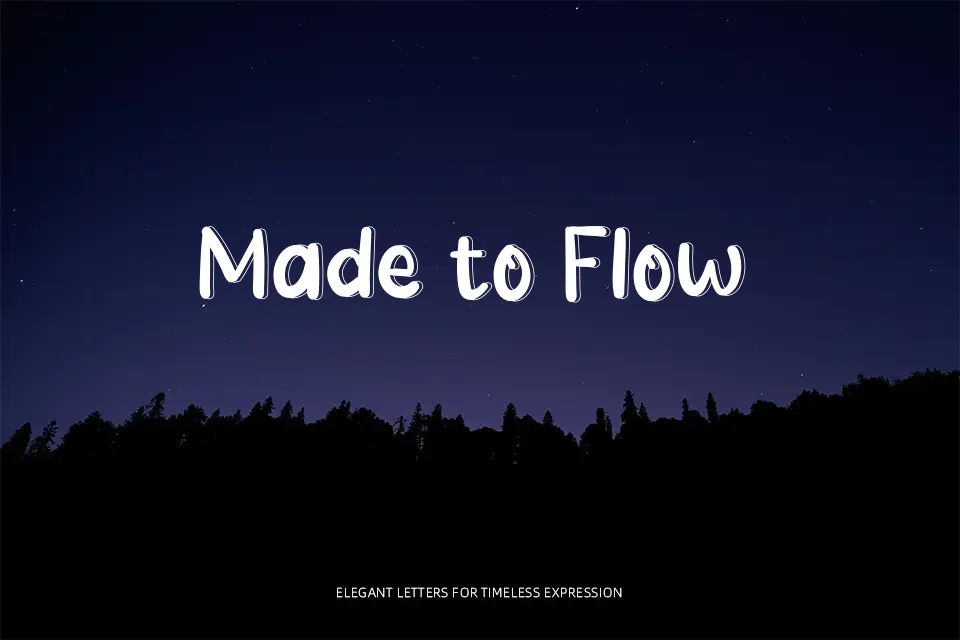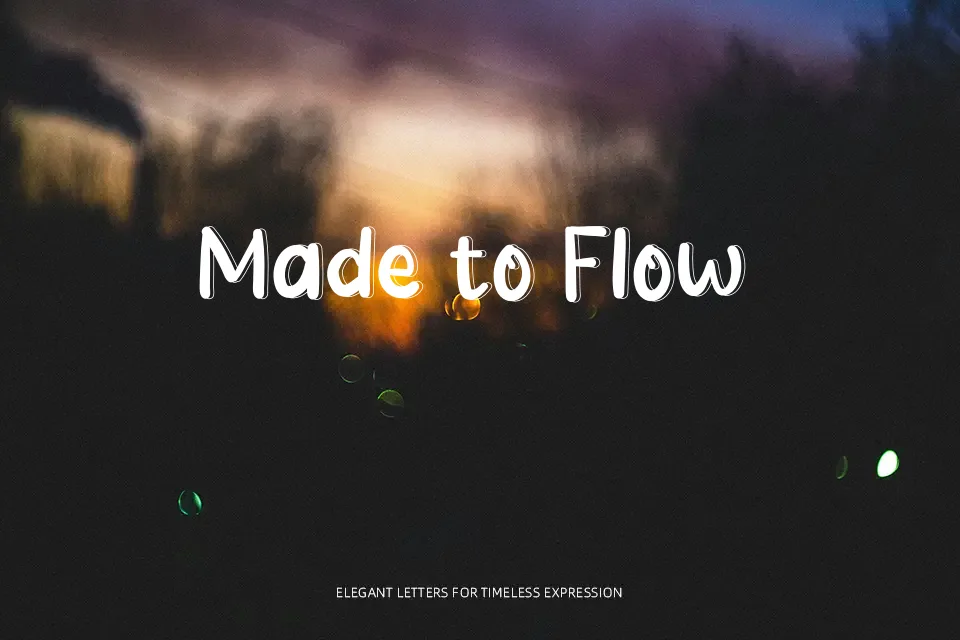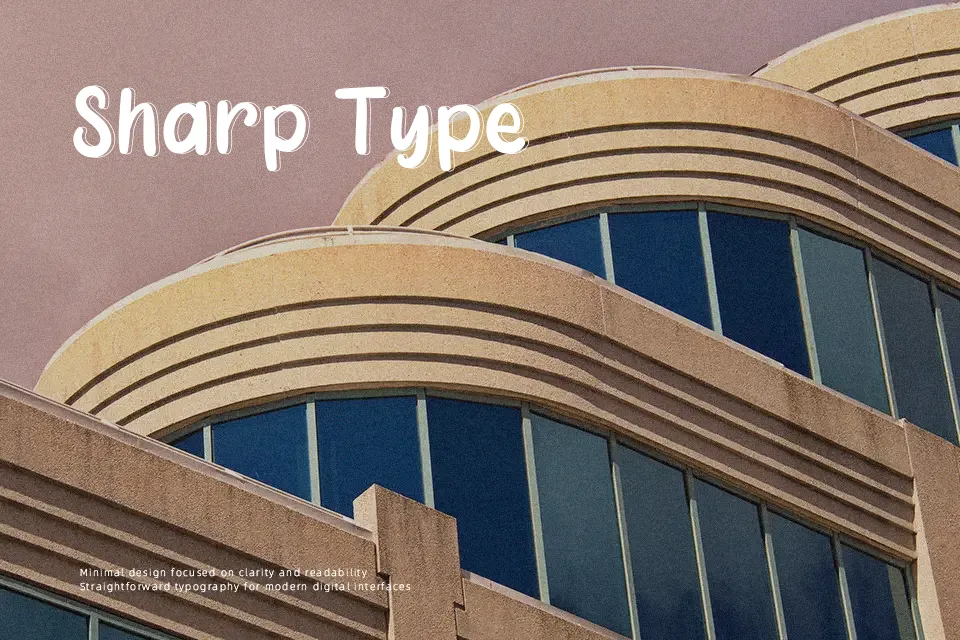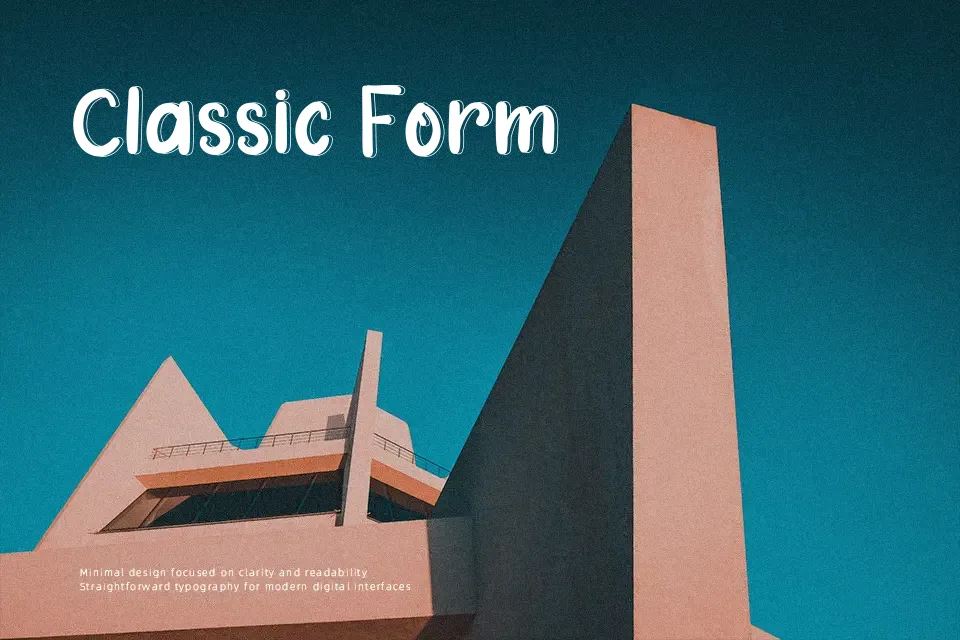
Afternoon Farmhouse Font
There’s a relaxed looseness to Afternoon Farmhouse that feels less designed and more discovered — like lettering found on a weathered wooden sign. The strokes are casual and slightly uneven, giving it an organic texture that works against clean backgrounds. Spacing is generous enough to breathe but not so open it falls apart at display sizes. It reads best as a headline or short label rather than any kind of running text — push it past a couple of lines and legibility starts to slip. Where it earns its place is in contexts that need warmth without sentimentality: farm-to-table restaurant menus, handmade soap packaging, or seasonal event posters. The style sits somewhere between a casual script and a hand-lettered serif, so pairing it with a neutral sans-serif for body copy is the practical move.
– Farmhouse or cottage-style product label headers
– Seasonal market and event posters
– Small business branding with a handcrafted aesthetic
– Social media graphics for food or lifestyle content
– Body text or multi-line paragraphs
– Corporate or professional documents
– Contexts requiring strict legibility at small sizes
– Multilingual or non-Latin typesetting
Perfect for branding, packaging, and poster, with a calm and display style.